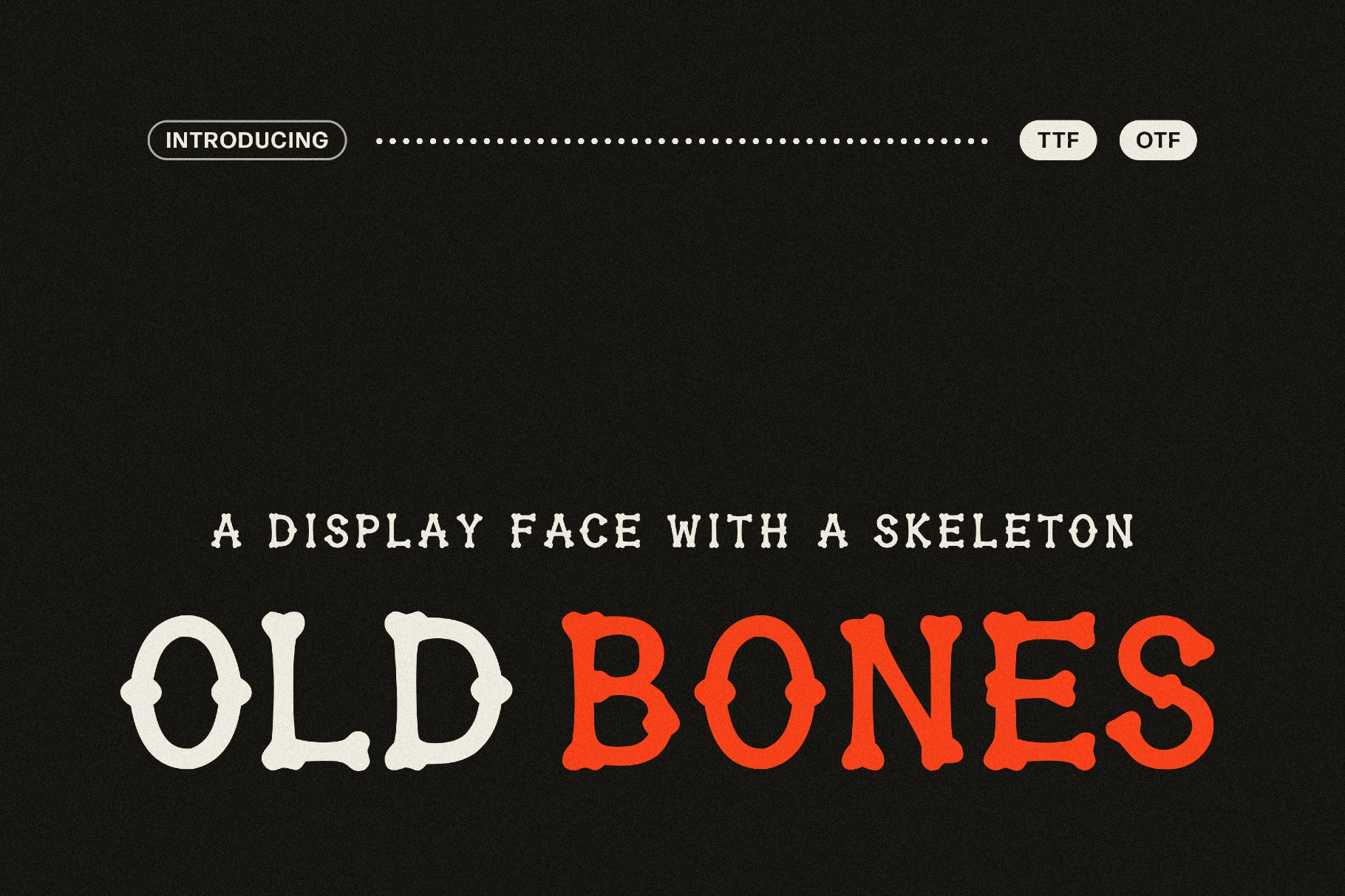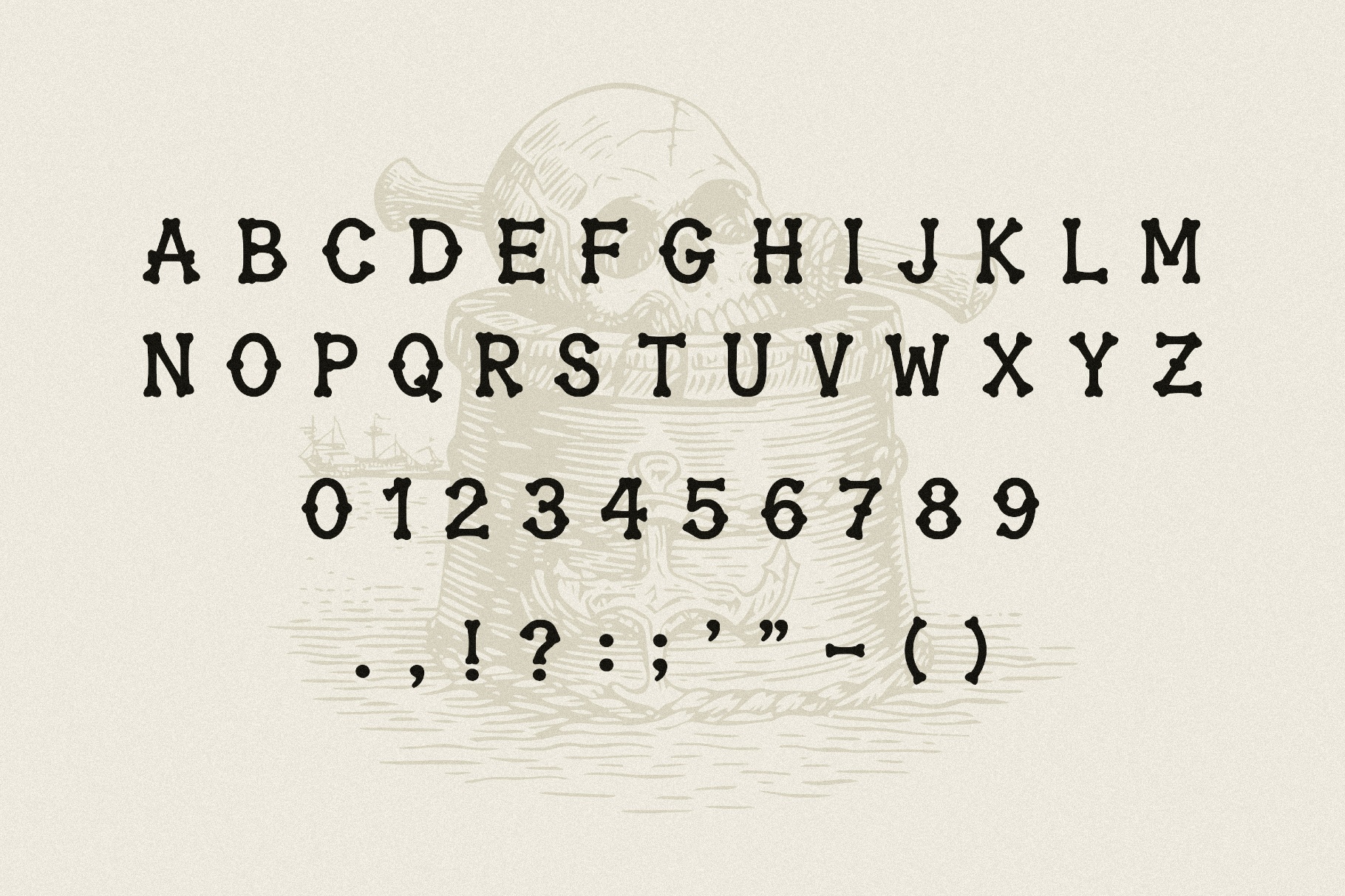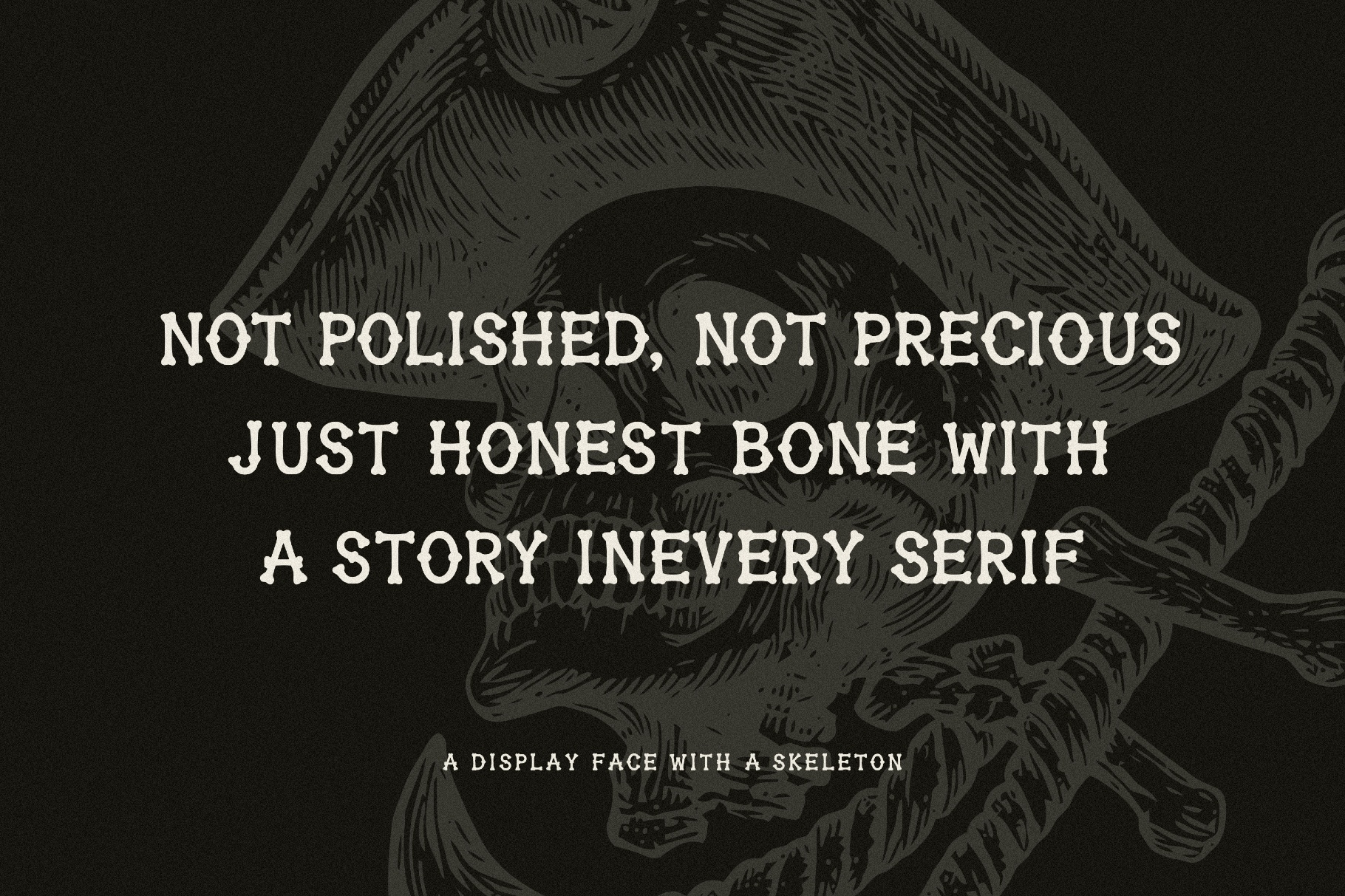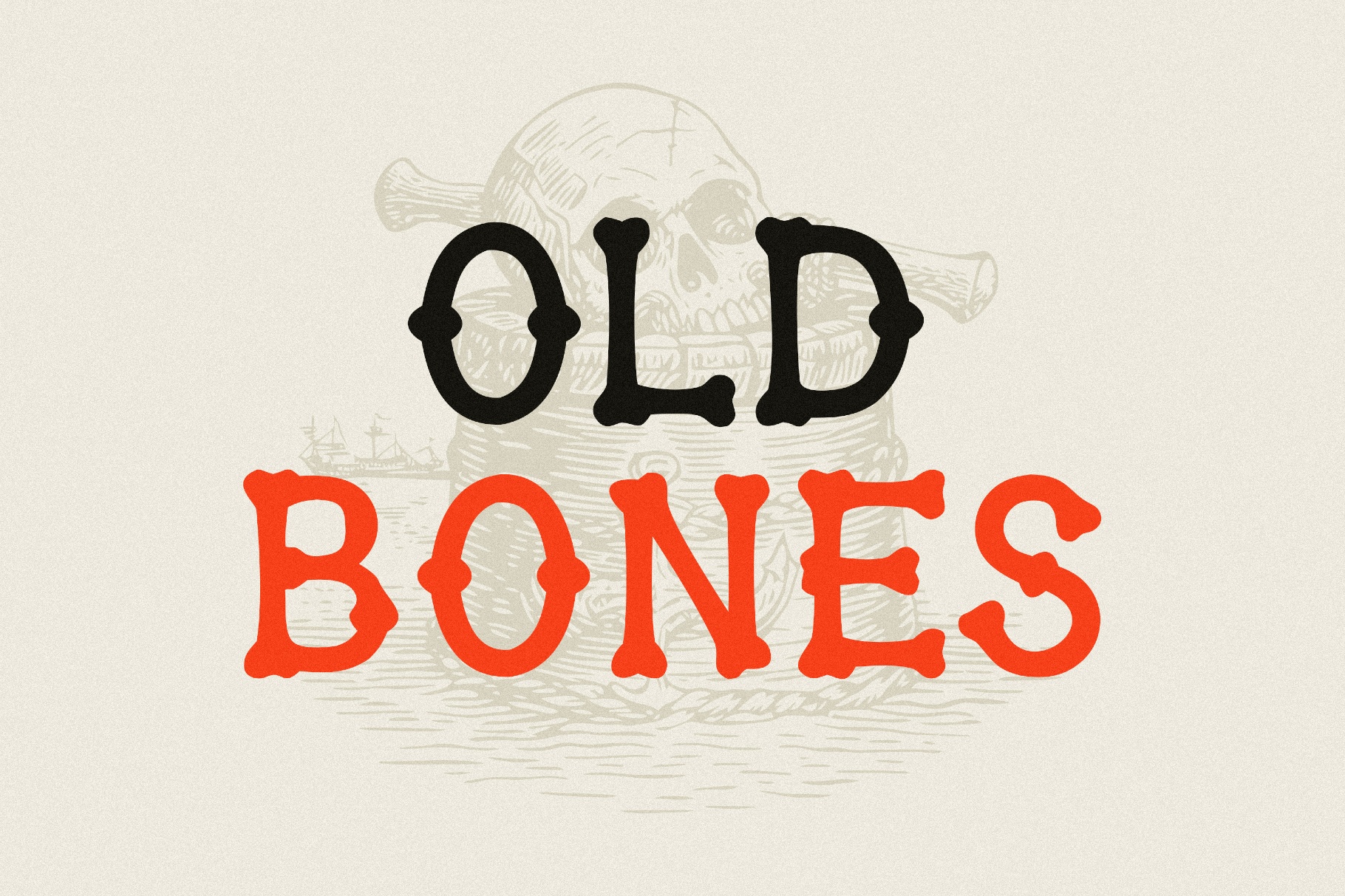
Old Bones - Hand-Drawn Display Font
Old Bones grows out of antique engraving, skull-and-crossbones woodcuts, and weathered tavern signage. It's a hand-drawn display font where the terminals swell into knobby, bone-shaped serifs. Every letter is drawn by hand, so the edges keep a rough, uneven character, reading like old print pulled off a worn block. The construction is a sturdy uppercase serif, and the staggered rhythm gives it a theatrical, slightly eerie presence once the type goes big.
The font works best in short, loud settings. It maintains a strong silhouette even when the print turns gritty, making it a natural fit for anything with a maritime, horror, or old-world edge.
• Branding and logos — craft breweries, tattoo studios, barbershops, dive bars, motorcycle clubs.
• Poster and flyer design — gig posters, horror screenings, Halloween nights, metal shows, costume parties.
• Merchandise — band tees, enamel pins, skate decks, patches, sticker packs.
• Packaging design — hot sauce labels, spirit bottles, coffee bags, craft soda, candle tins.
• Editorial and titles — book covers, chapter openers, comic titles, zine headers.